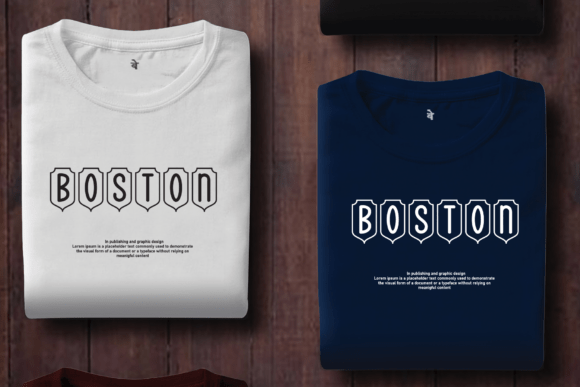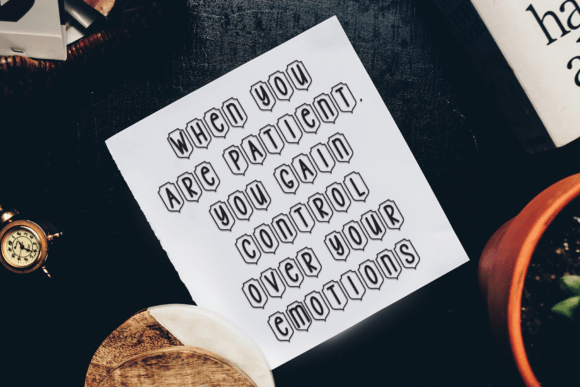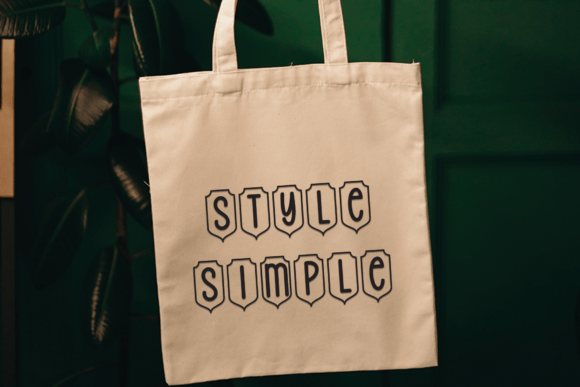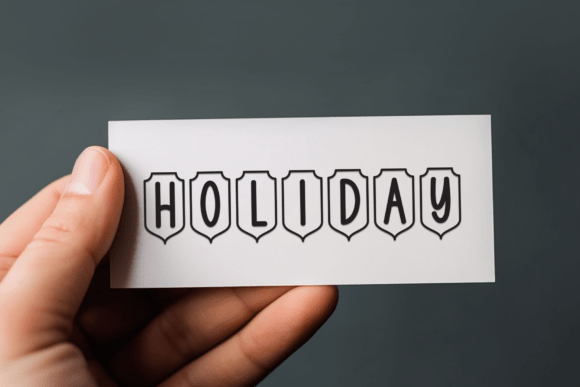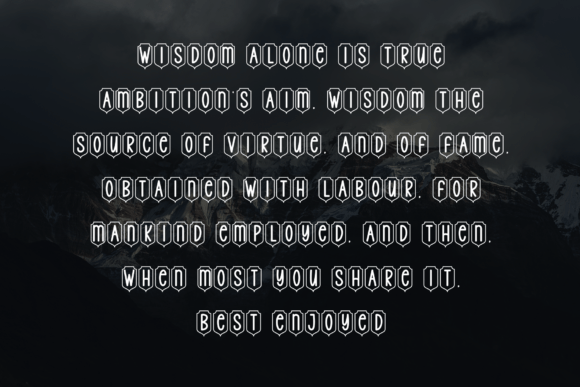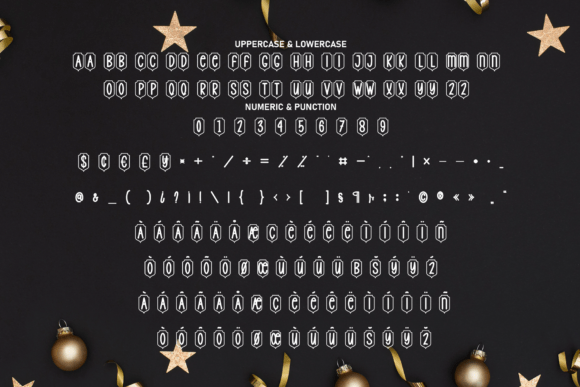
Happy New Year Font: Celebrate in Style with a Unique Display Font
As the clock strikes midnight on December 31st, the world welcomes a brand new year filled with hope, promise, and endless possibilities. What better way to ring in the festivities than with a one-of-a-kind display font that adds a touch of magic to your holiday party banners, New Year’s Eve invitations, and seasonal branding? Introducing the Happy New Year Font, a playful and unique design that is sure to make your celebrations shine.
A Font Like No Other: Decorative Shields and Whimsical Charm
The Happy New Year Font is a true showstopper, with every letter housed within its own decorative shield. This innovative design mimics the look of festive bunting or commemorative medals, instantly elevating your projects from ordinary to extraordinary. The font’s whimsical, hand-drawn character brings a sense of handcrafted joy to any celebratory project, making it perfect for designers and crafters looking to add a personal touch to their work.
Perfect for Holiday Projects: Banners, Invitations, and More
Whether you’re designing a festive banner for a holiday party, creating invitations for a New Year’s Eve celebration, or developing a seasonal branding campaign, the Happy New Year Font is the perfect choice. Its unique design and playful charm make it an instant standout, sure to capture the attention of your audience and leave a lasting impression.
Key Features of the Happy New Year Font
- Unique Shield Design: Every letter is housed within its own decorative shield, adding a touch of elegance and sophistication to your projects.
- Whimsical, Hand-Drawn Character: The font’s playful, hand-crafted design brings a sense of joy and personality to any celebratory project.
- Festive and Fun: Perfect for holiday party banners, New Year’s Eve invitations, and seasonal branding, the Happy New Year Font is sure to add a touch of festive fun to your work.
- Instant Standout: The font’s innovative design and unique charm make it an instant standout, sure to capture the attention of your audience.
Tips for Using the Happy New Year Font
To get the most out of the Happy New Year Font, here are a few tips to keep in mind:
- Use it Sparingly: While the font is perfect for headlines and titles, it’s best to use it sparingly to avoid overwhelming your design.
- Pair it with a Simple Font: Pair the Happy New Year Font with a simple, easy-to-read font to create a striking contrast and make your design pop.
- Experiment with Colors: Don’t be afraid to experiment with different colors and textures to add depth and interest to your design.
The Happy New Year Font is a one-of-a-kind display font that is sure to add a touch of magic to your holiday projects. Its unique design, whimsical charm, and festive character make it the perfect choice for designers and crafters looking to create something truly special. So why settle for an ordinary font when you can celebrate in style with the Happy New Year Font?
Get Ready to Celebrate in Style!
Whether you’re a designer, crafter, or simply someone who loves to celebrate, the Happy New Year Font is the perfect way to add a touch of personality and whimsy to your holiday projects. So go ahead, get creative, and ring in the new year in style!